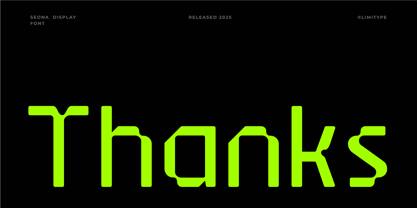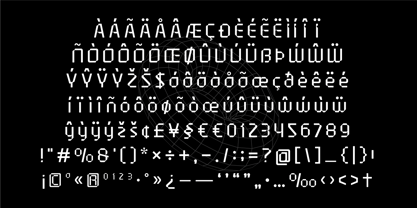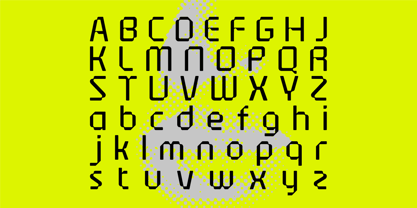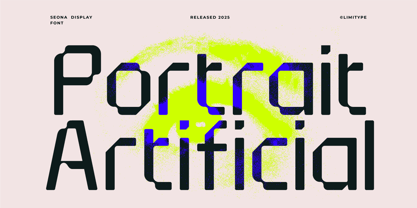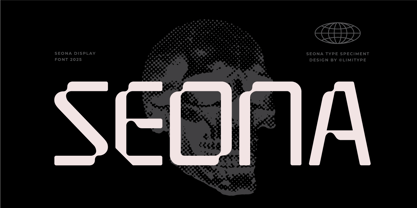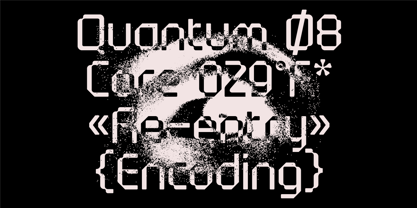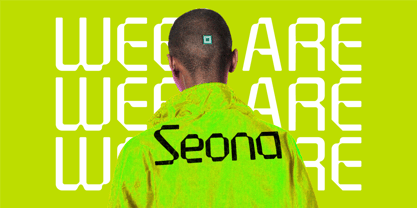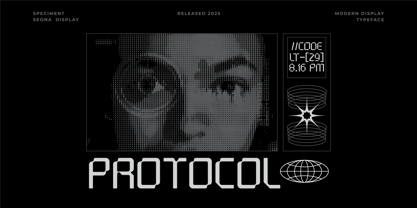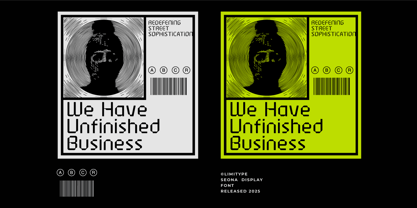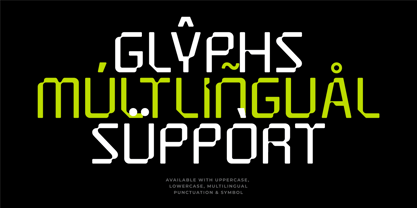
Seona
The Seona Font Family was designed by Muhammad Muammar, Furqan Sudirman and published by limitype. Seona contains 1 styles. More about this family
Seona is a futuristic display font with a unique and slightly experimental letterform style. Its modern design, paired with distinctive connection shapes, gives it a bold and forward-looking character. Perfect for projects that aim to evoke a high-tech, robotic, or futuristic feel.
- Uppercase
- Lowercase
- Number
- Symbol
- Multilingual